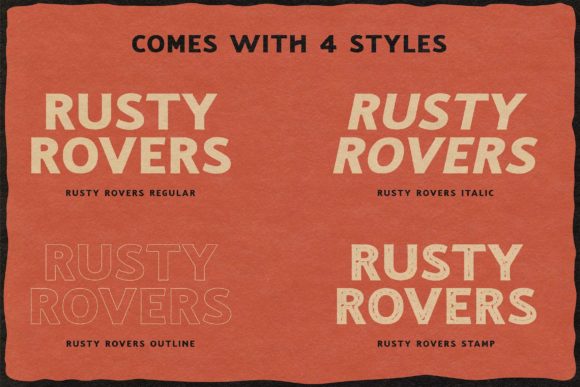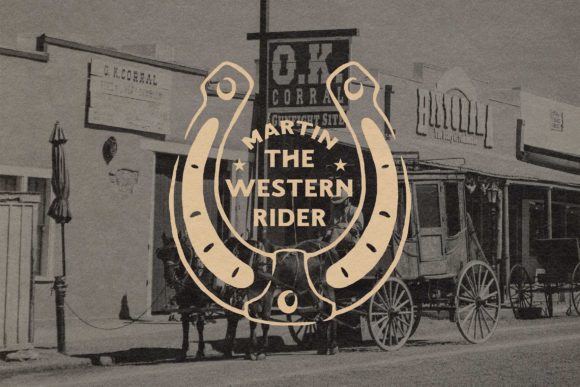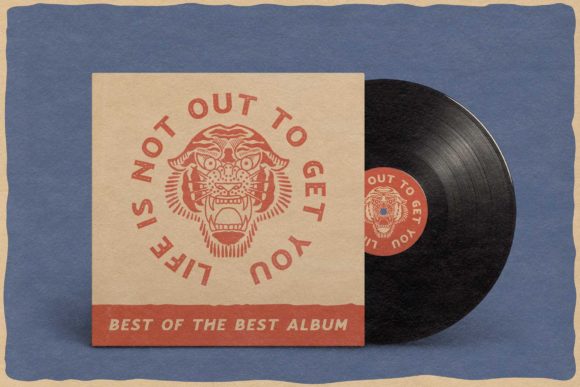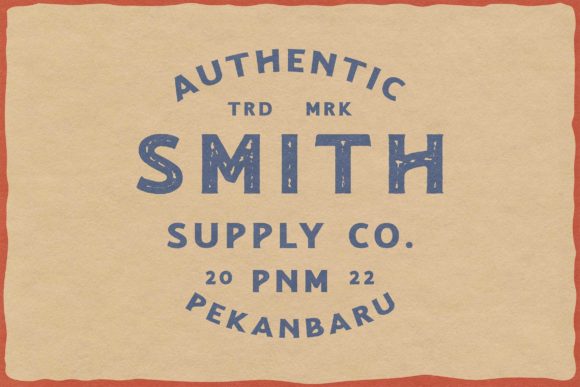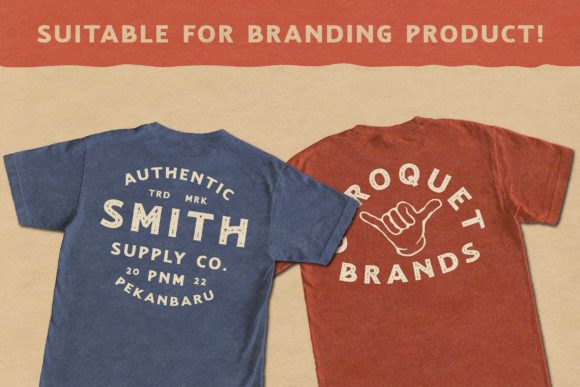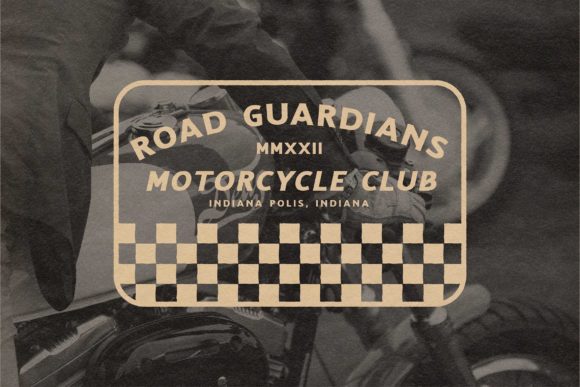
Introduction to Rusty Rovers Font
Rusty Rovers is a vintage-styled and gorgeous-looking display font.
It is a great font for fashion, signature, album cover, logo, branding, magazine, social media, advertisements, but it also works great for other projects .
Key Features of Rusty Rovers Font